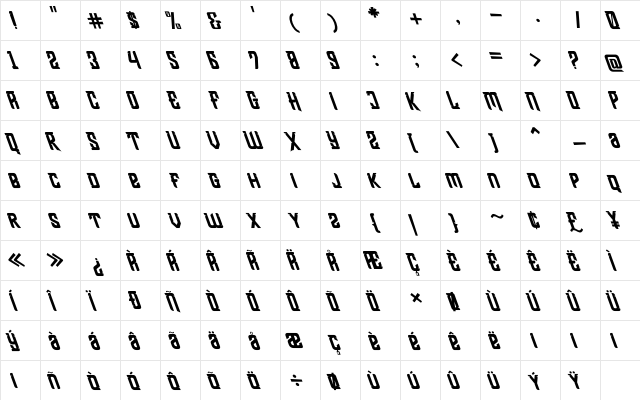
Shean Holmes Oblique Regular
Design Context for Shean Holmes Oblique Typeface
Shean Holmes Oblique is a composed and adaptable typeface that performs quietly and consistently across a wide range of design contexts. The slanted form adds forward momentum and visual energy.
Pro Tip: Try Shean Holmes Oblique for annotation and caption copy alongside an upright companion — the contrast in angle creates a dynamic but ordered typographic system.